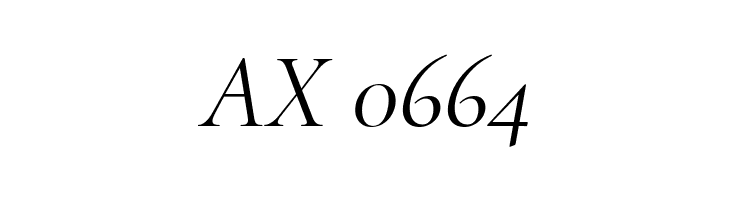
• Cormorant Garamond Italic
An elegant serif font with a classic italic style and moderate contrast.
• Cormorant Garamond Light
A classic serif font with high contrast and elegant thin strokes.
• Cormorant Garamond Light Italic
A light, italic serif font with elegant, classic styling and moderate contrast.
• Cormorant Garamond Medium
A classic serif font with elegant proportions and medium contrast.
• Cormorant Garamond Medium Italic
A classic, elegant serif font with a refined italic style and medium weight.
• Cormorant Garamond Regular
A classic serif font with high contrast and elegant, refined letterforms.
• Cormorant Garamond SemiBold
A classic serif font with elegant letterforms and a semi-bold weight.
• Cormorant Garamond SemiBold Italic
A classic serif font with semi-bold weight and italic style, offering medium contrast and elegant curves.
• Cormorant Infant
A classic serif font with high contrast and elegant letterforms.
• Cormorant Infant Bold
A classic serif font with high contrast and elegant serifs.
• Cormorant Infant Bold Italic
A bold, italic serif font with classic elegance and strong visibility.
• Cormorant Infant Italic
An elegant serif italic font with graceful curves and moderate contrast.
• Cormorant Infant Light
A refined serif font with elegant, thin strokes and classic proportions.
• Cormorant Infant Light Italic
An elegant, high-contrast serif font with a light, italic style.
• Cormorant Infant Medium
A classic serif font with elegant, refined letterforms and balanced weight.
• Cormorant Infant Medium Italic
An elegant and sophisticated italic serif font with medium weight and refined details.
• Cormorant Infant Regular
A classic serif font with elegant, refined letterforms and slight stroke contrast.
• Cormorant Infant Semi
A classic serif font with elegant lines and refined style.
A classic serif font with high contrast and small caps style.
• Cormorant Semi
A classic serif font with elegant strokes and a refined, modern appearance.